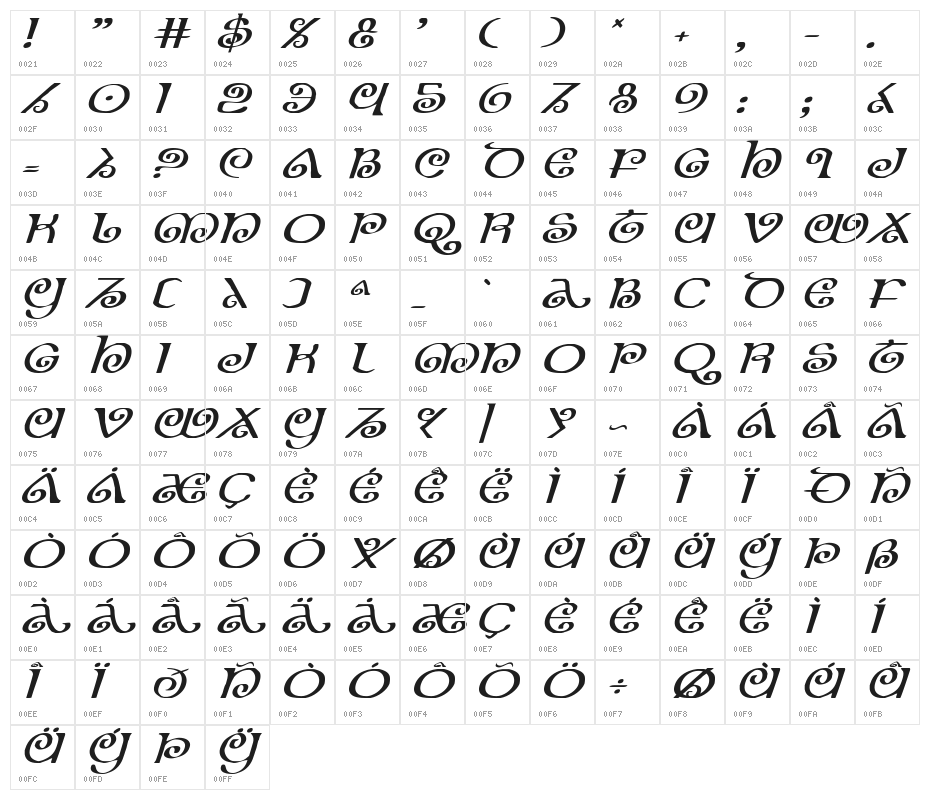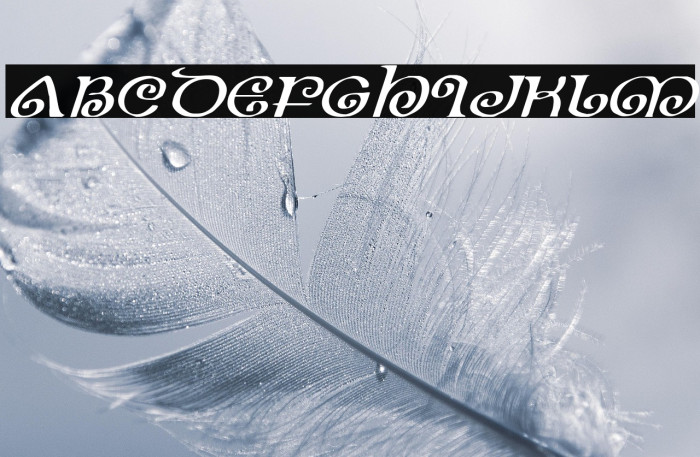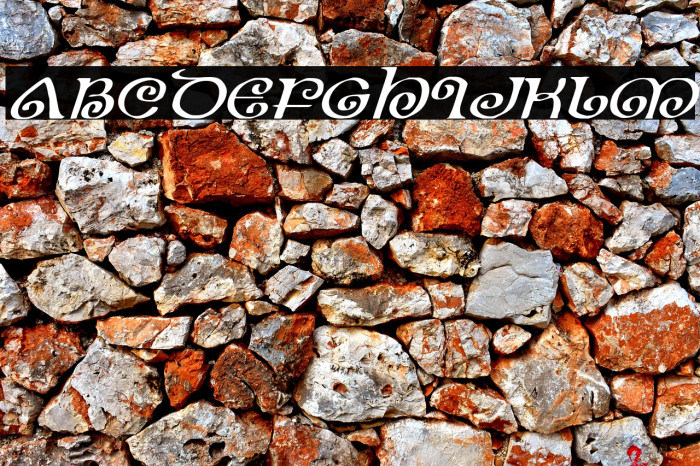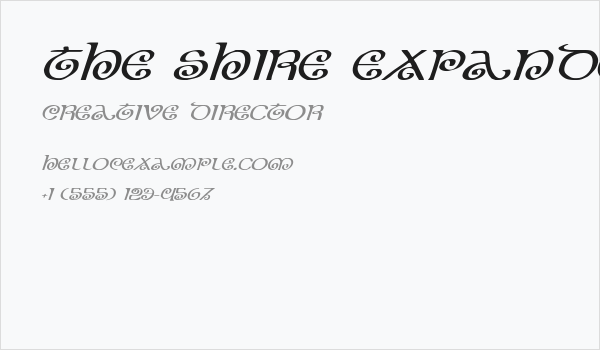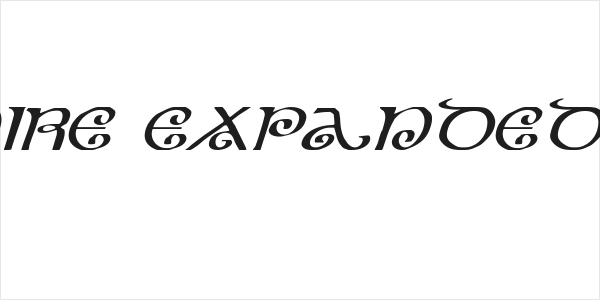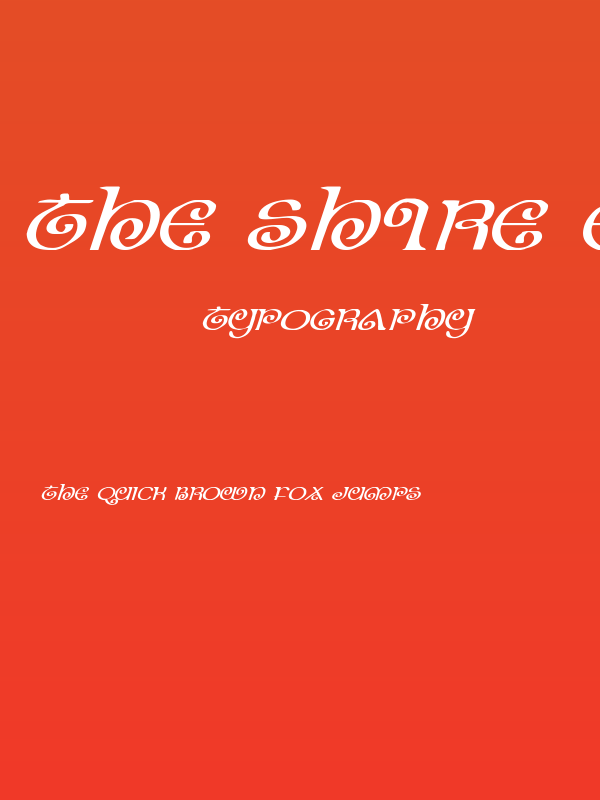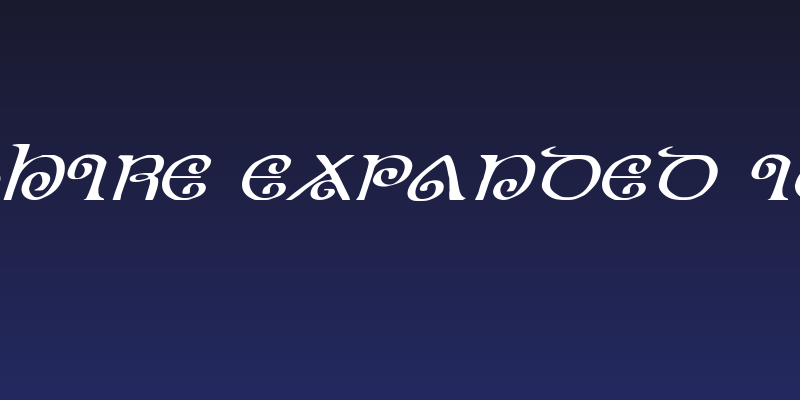
The Shire Expanded Italic Font
The Shire Expanded Italic Description
This font features a whimsical and decorative style, characterized by its flowing and ornate letterforms. Each character is embellished with unique curls and swirls, giving it a fantasy-like appearance. The uppercase and lowercase letters maintain a consistent design theme, with exaggerated curves and loops that create a sense of movement and elegance. The numerals and special characters are equally stylized, ensuring a cohesive look across all glyphs. This font's expanded and italicized nature adds to its distinctiveness, making it stand out in any design project.
| Proposed Projects | Ideal for fantasy-themed projects, book covers, posters, and invitations where a magical or whimsical touch is desired. |